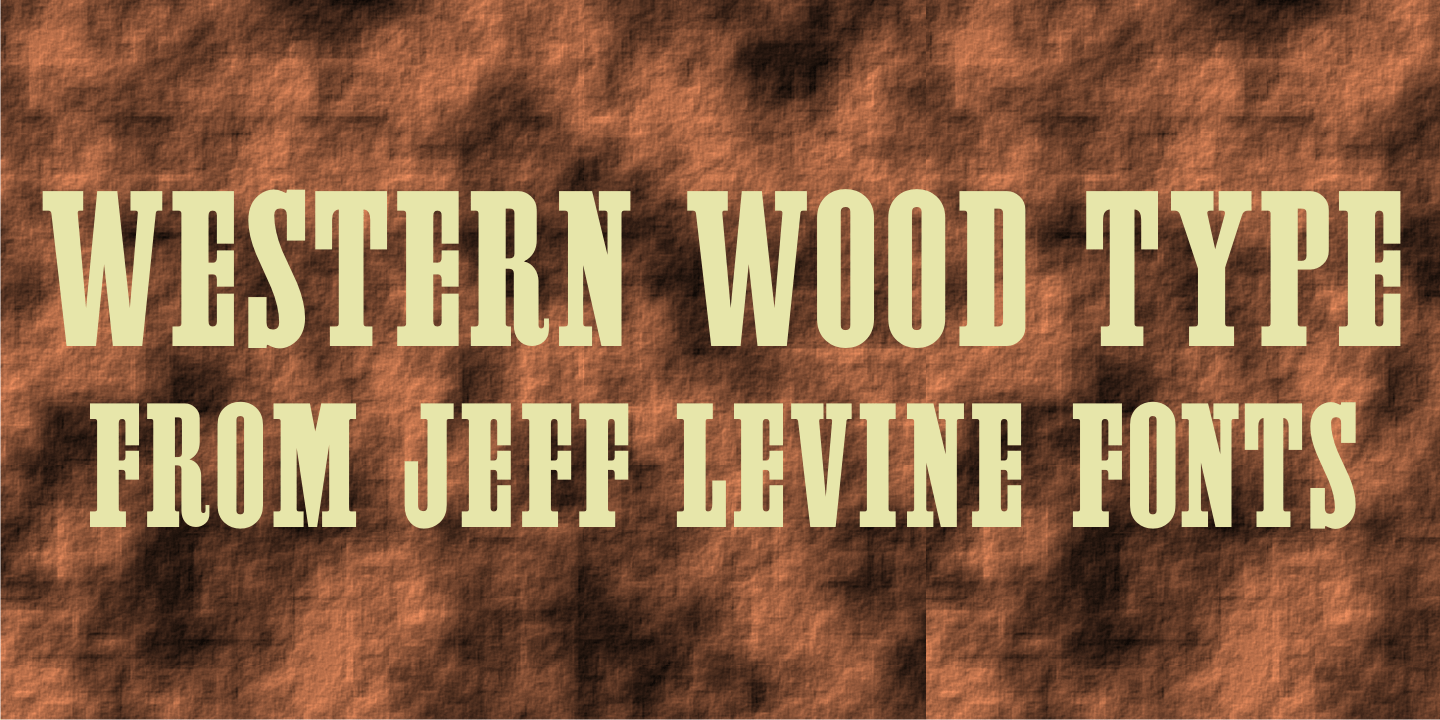
Western Wood Type
Inspired by a sample of a vintage wood type supplied by a fan of Jeff Levine fonts, Western Wood Type JNL is a traditional Clarendon-style condensed typeface from the era of letterpress and the Old West.